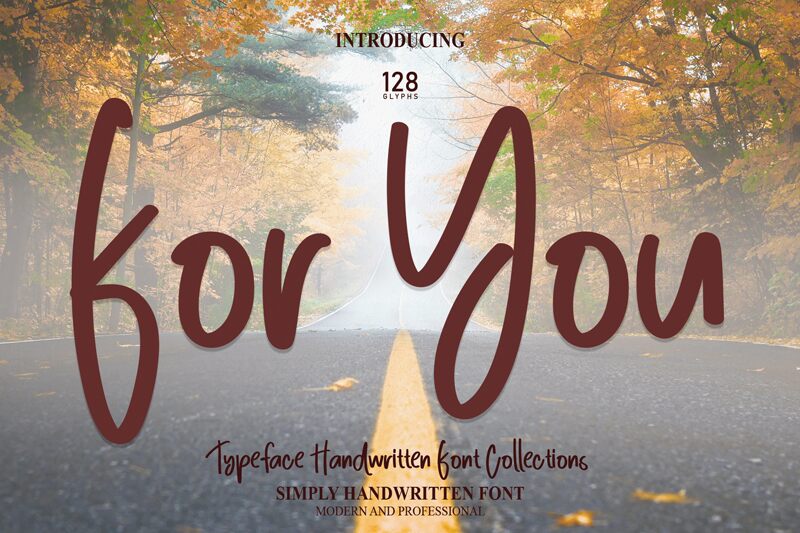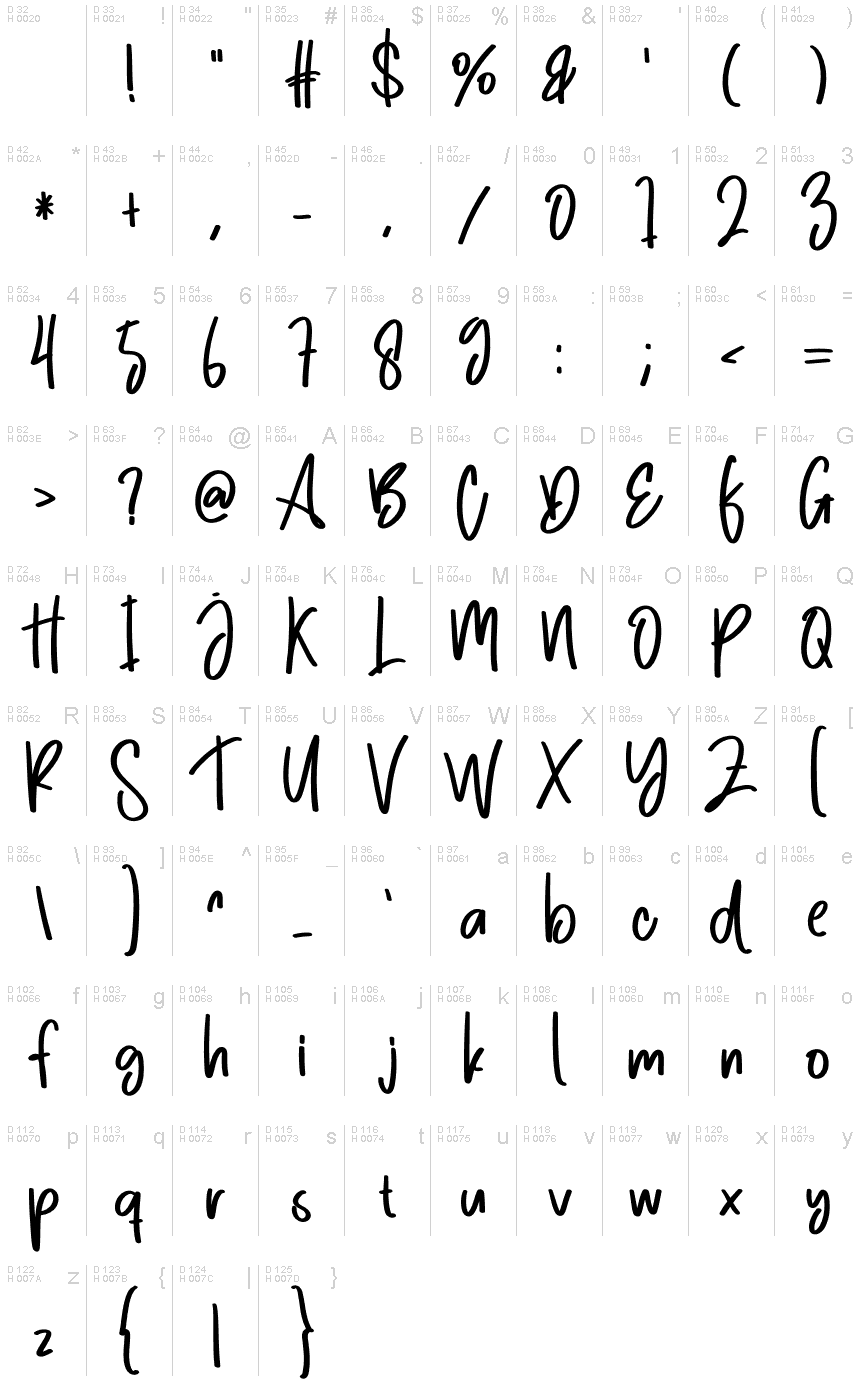
For You
For You, a charming handwritten font by scratchones, adds a touch of whimsy to any project. With its semi-light weight and semi-condensed width, this font exudes elegance and versatility. Perfect for wedding invitations, greeting cards, or blog headers, For You is sure to captivate your audience. Its fluid strokes and unique character make it an ideal choice for creative projects such as branding materials, logo designs, or even children's book illustrations. Let For You be the delightful companion that brings warmth and personality to all your artistic endeavors.
the latest style letters are perfect for wall displays, wedding invitations, social media post logos, advertisements, product packaging, product designs, labels, photography, watermarks, invitations, stationery, and any project that requires taste handwriting.